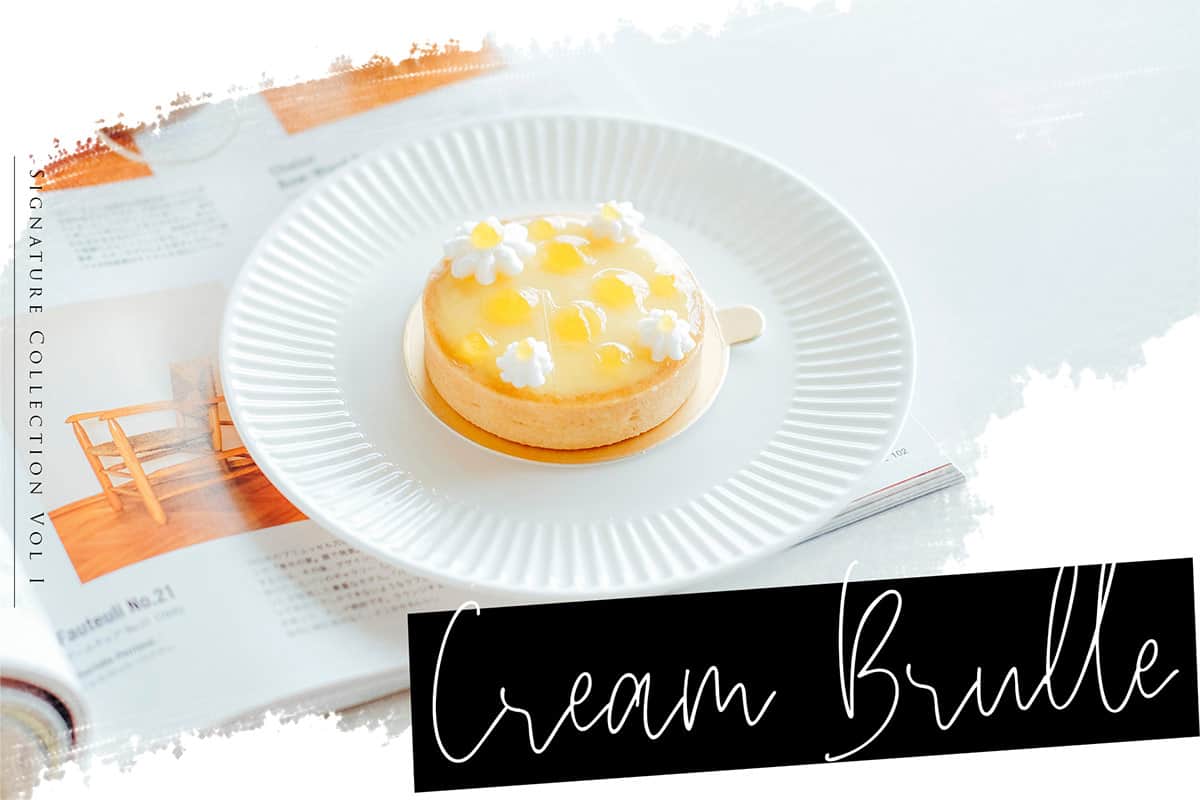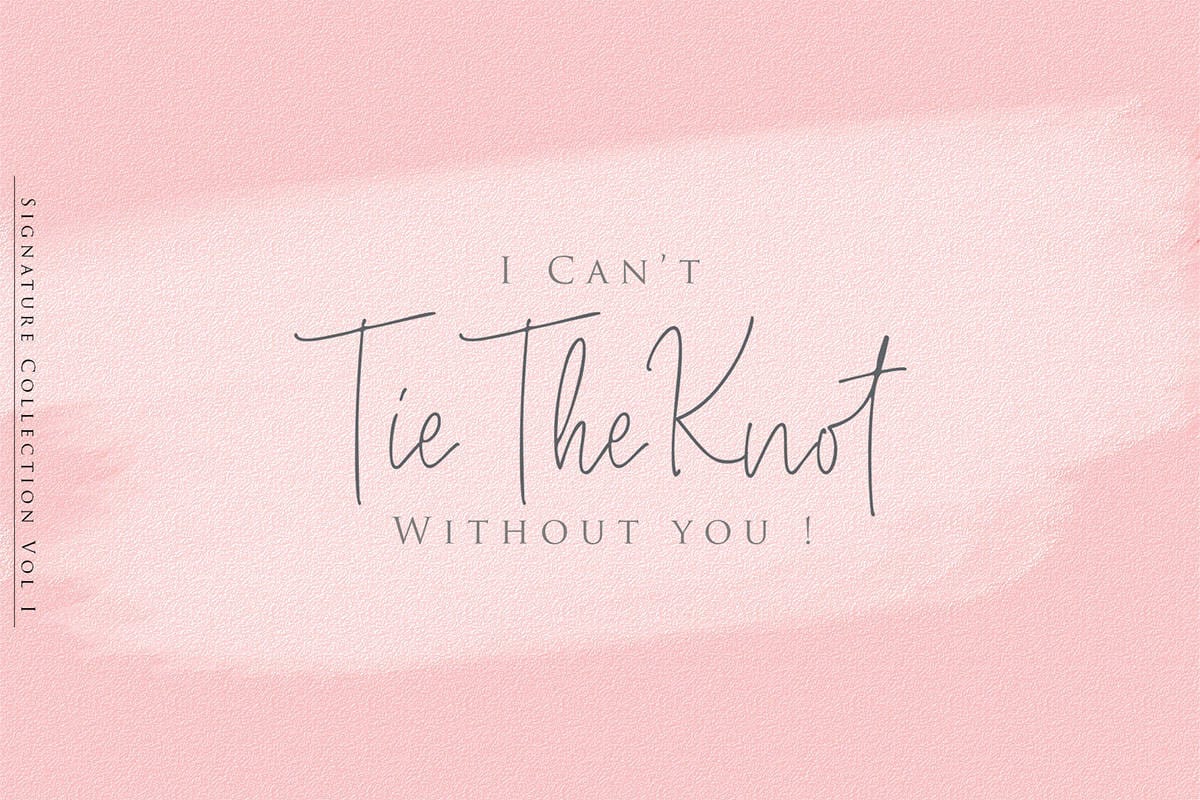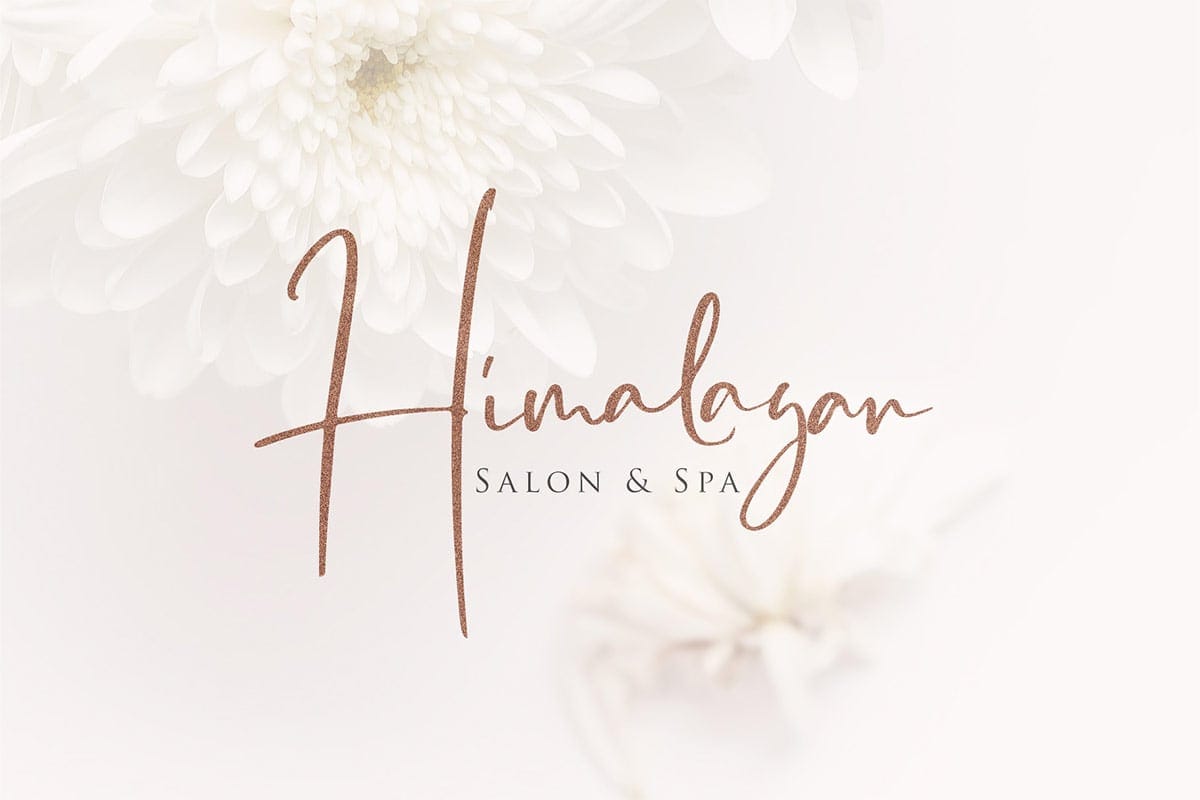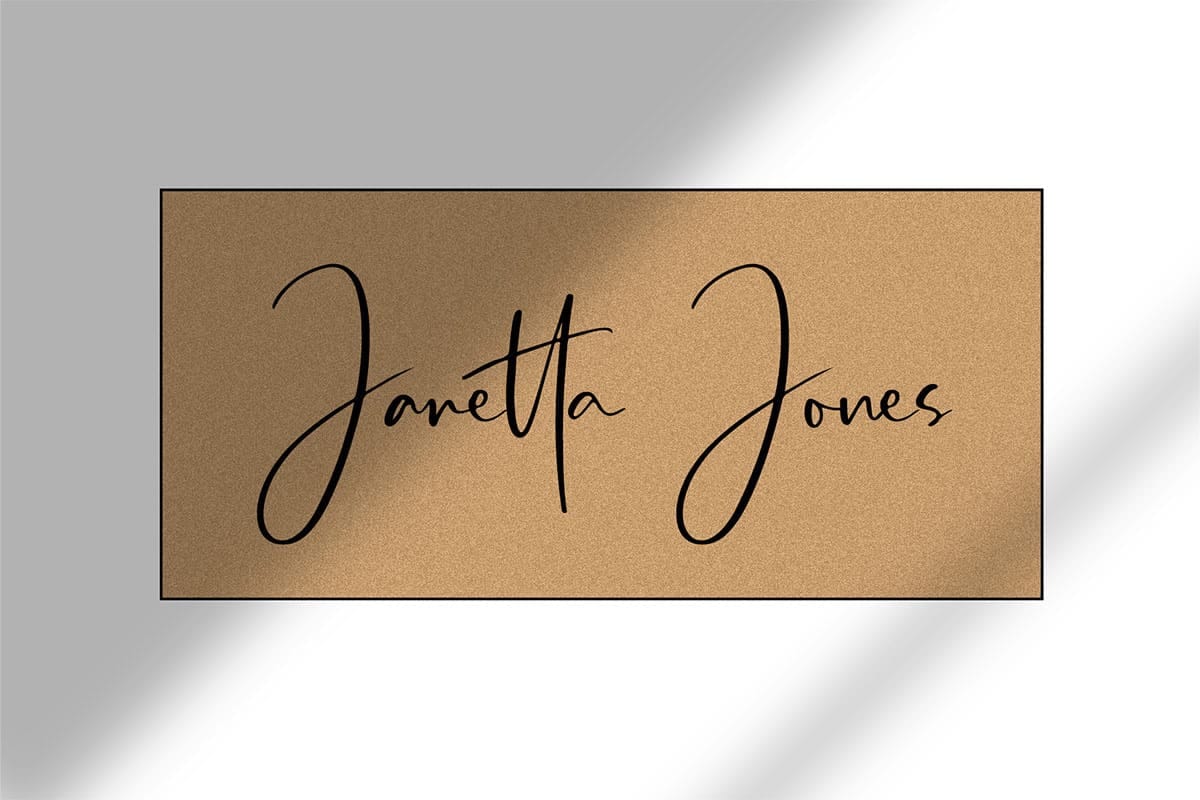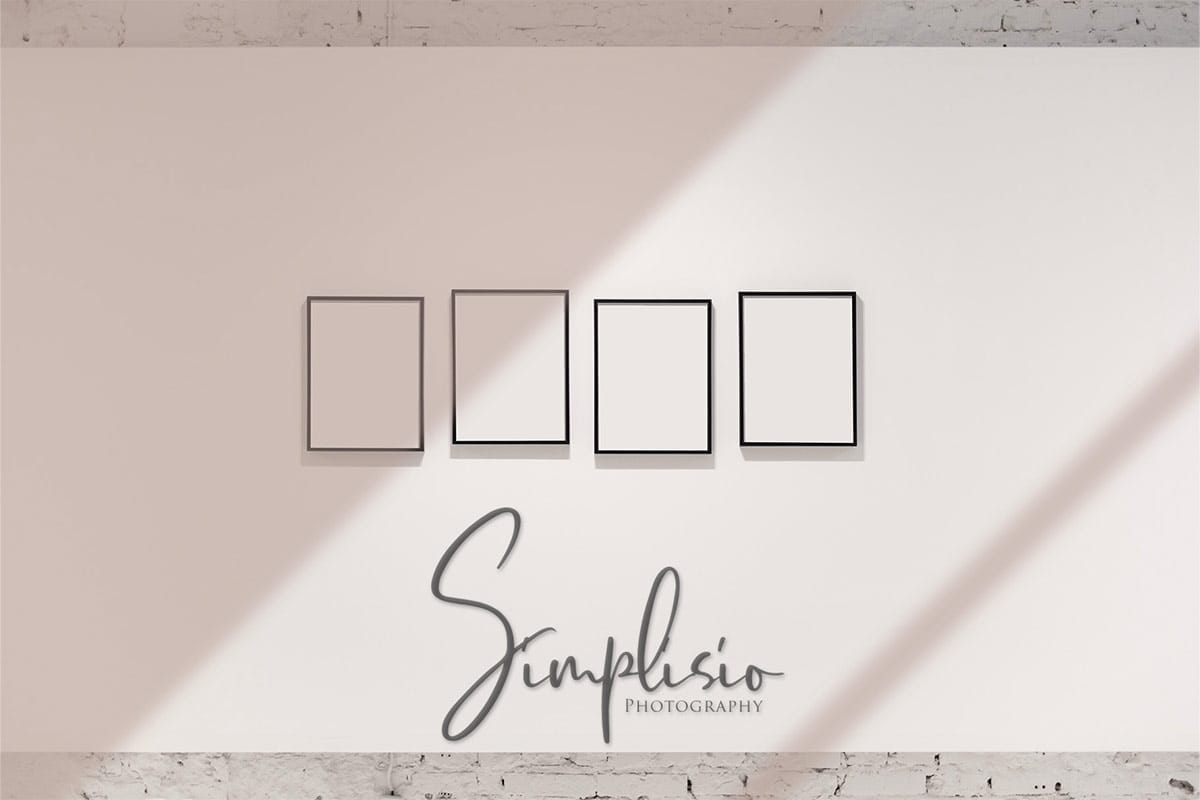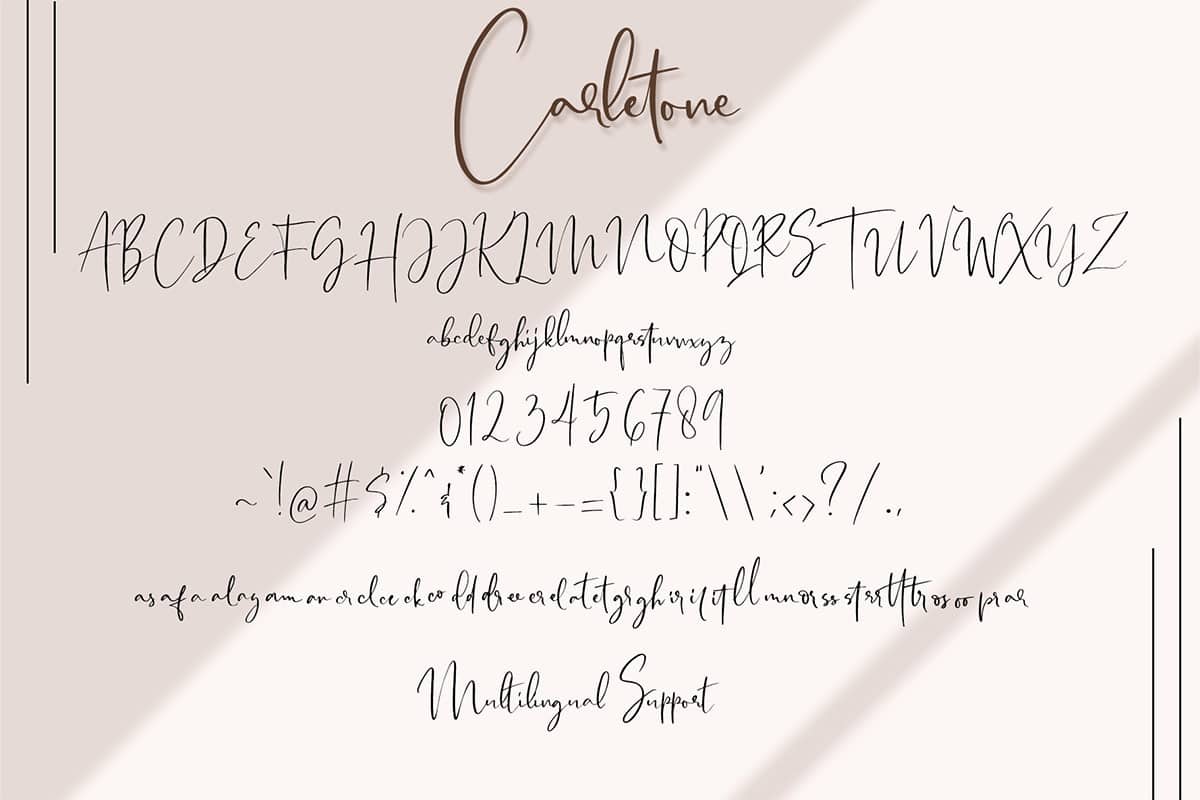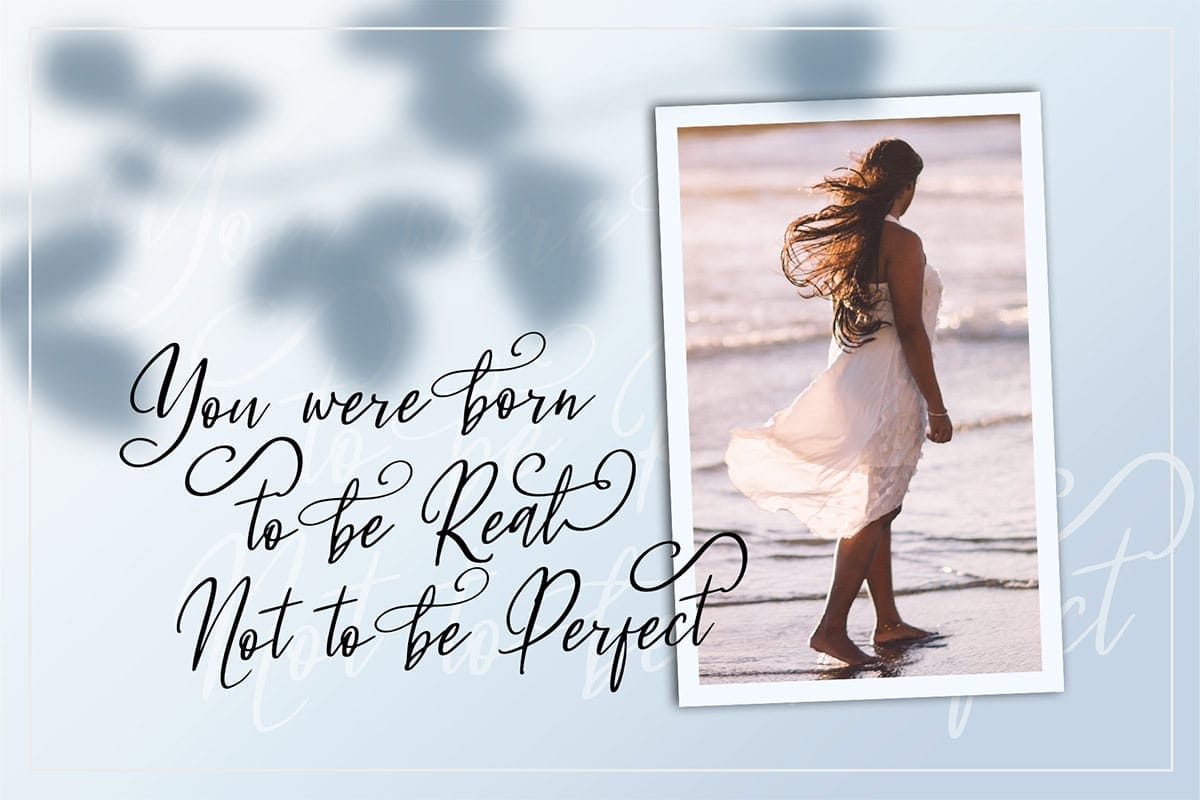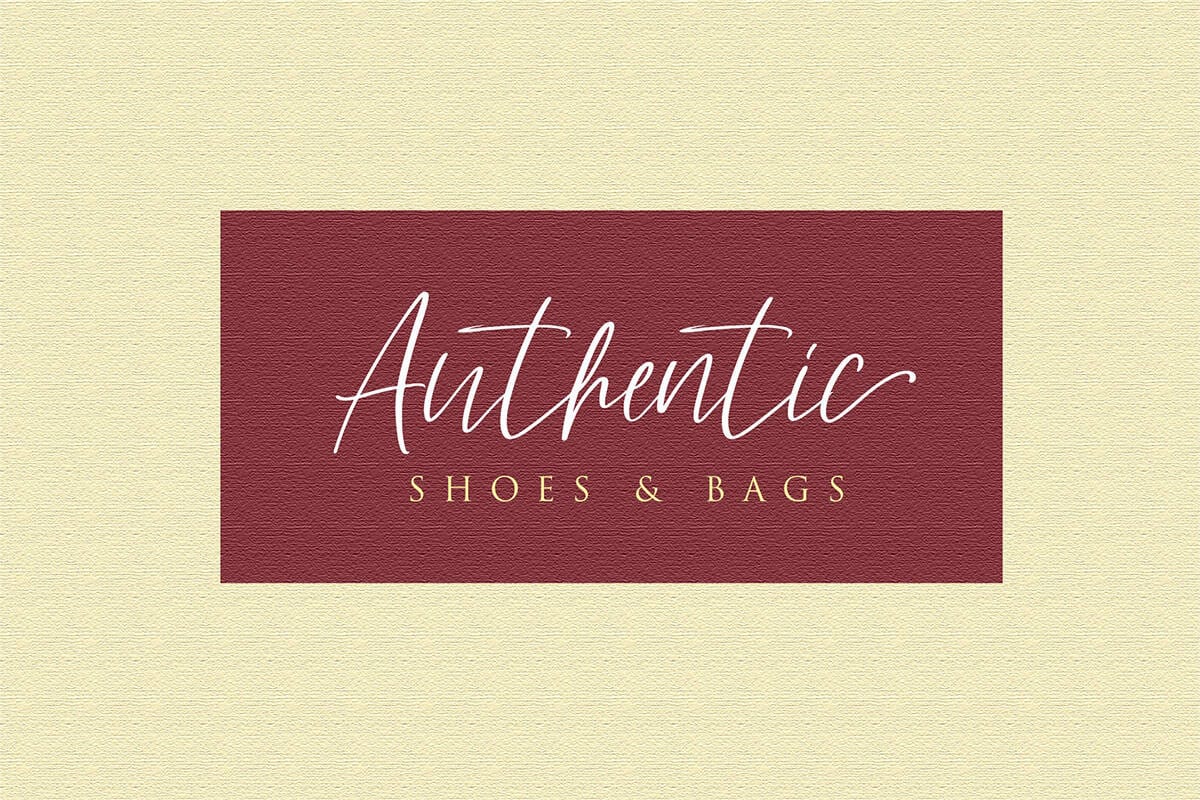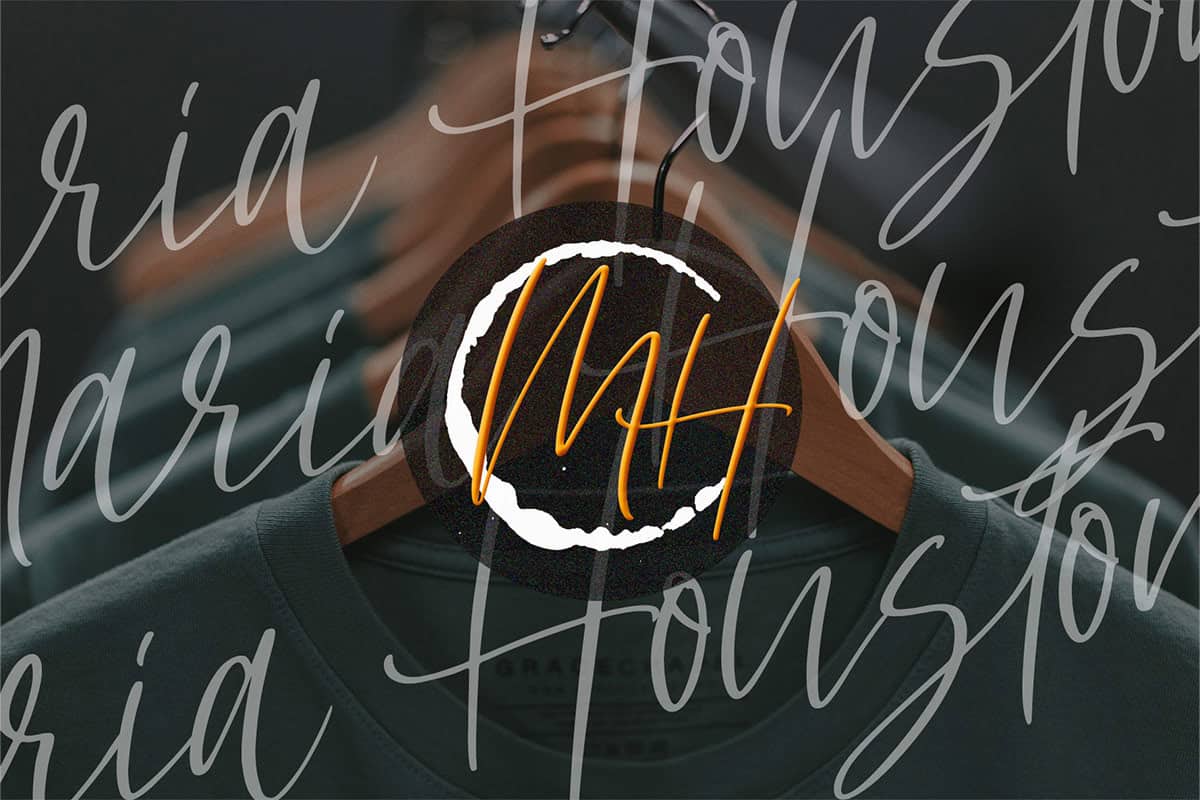
Dry Humor: The Best Funny and Motivational Sobriety Quotes
In the world of recovery, a sense of humor is often the best medicine. Whether you’re newly sober, a seasoned veteran, or supporting someone on their path, funny and motivational sobriety quotes can offer strength and smiles in equal measure. In this article, we blend those inspiring words with stunning font pairings based on our latest design mood board to give your journey not just meaning—but visual charm too.
Why Funny and Motivational Sobriety Quotes Matter
Sobriety is a serious journey, but that doesn’t mean every moment has to be solemn. Funny and motivational sobriety quotes provide emotional relief, help break the tension, and offer encouragement in bite-sized nuggets. They are the fuel that powers mindset shifts, morning routines, and even the occasional phone wallpaper.
The best part? When these quotes are paired with the right typography, they become powerful visual affirmations that make your message stick on posters, shirts, journals, and more.
Font Pairing Inspiration for Sobriety Quotes
Our latest font collection from DM Letter Studio provides the perfect visual mood for sober messaging. Whether you’re creating printables, social graphics, or merchandise, these font pairings amplify the quote’s message.
1. Hellena + Carletone
Hellena – Handwritten Script Font
Carletone – Classy Signature
Best For: Elegant quote prints or framed wall art
Tone: Empowering & graceful
Use this pairing for inspiring messages like:
“Sobriety is not a punishment it’s a superpower.”
2. Fleur Bleue + Sparkling Bright
Fleur Bleue Font Preview1
Fleur Bleue – Beautiful Romantic Font
Sparkling Bright – Beauty Font Duo
Best For: Journaling, affirmation cards
Tone: Light-hearted, clean aesthetic
Use this pairing for inspiring messages like:
“You can’t drink all day if you don’t start in the morning… so I stopped starting.”
3. Beauty Signature + Janethville
Beauty Signature Font Preview1
Beauty Signature – Handwritten Font
Janethville – Signature Font
Best For: T-shirts and stickers
Tone: Chic, youthful, and expressive
Use this pairing for inspiring messages like:
“Alcohol is the liquid version of Photoshop. But I like my life unfiltered.”
Top Funny and Motivational Sobriety Quotes
Here are our favorite funny and motivational sobriety quotes, organized by theme and styled with typography ideas to inspire your own visual project.
Laughing Through Sobriety: Funny Quotes That Lighten the Mood
Laughter makes sobriety manageable. Try these quotes to keep things light.
1. “I finally quit drinking for good. Now I drink for evil.”
2. “I’m not sober. I’m just on a permanent break from hangovers.”
3. “I used to drink to forget. Now I’m sober enough to remember not to do that again.”
4. “Drinking ruins lives. Water, however, only ruins my mascara.”
5. “My life is better without wine… said no one during 2020. Except me. I meant it.”
Font pairing suggestion: Omarta + Graciast for a classy-meets-witty vibe.
Daily Affirmations: Motivation for Sobriety Quotes
Use these quotes to kick-start your day with positive energy.
1. “Today I choose peace over chaos and coffee over cocktails.”
2. “Every sober day is a small victory. Celebrate it.”
3. “Sober is the new strong.”
4. “You don’t have to be perfect you just have to be present.”
5. “Clear mind, strong soul.”
Font pairing suggestion: Bambang Signature + Sparkling Bright for calm, motivating visuals.
Short and Punchy Sobriety Motivational Quotes
If you love brevity, these are for you.
1. “One day at a time.”
2. “Recovery is a lifestyle, not a sentence.”
3. “Stay sober. Stay savage.”
4. “Grace over guilt.”
5. “Progress, not perfection.”
Typography tip: Use Ronallatie + Beauty Signature for short quotes with elegance and punch.
Humor Meets Healing: Quotes with a Kick
These funny and motivational sobriety quotes bring both laughter and encouragement.
1. “I’m not high on life. Just caffeinated and sober.”
2. “Sobriety: because I’m too old for hangovers and bad decisions.”
3. “I drink… water now. And honestly? I feel fabulous.”
4. “Recovery is hard, but have you tried making mistakes while sober? You remember ALL of them.”
5. “It’s never too late to be the sober hot mess you were meant to be.”
How to Use These Sobriety Quotes with Style
Whether for personal use or to support someone in recovery, combining quotes with fonts adds extra impact: